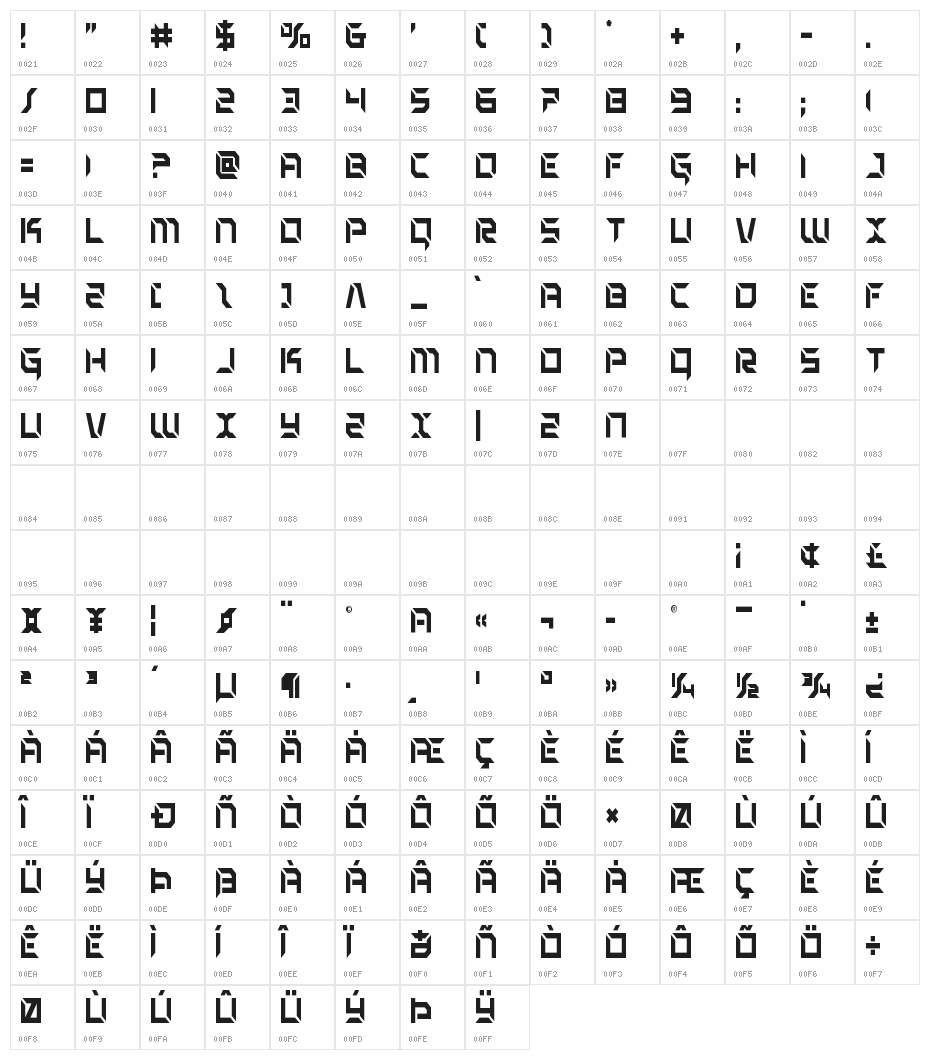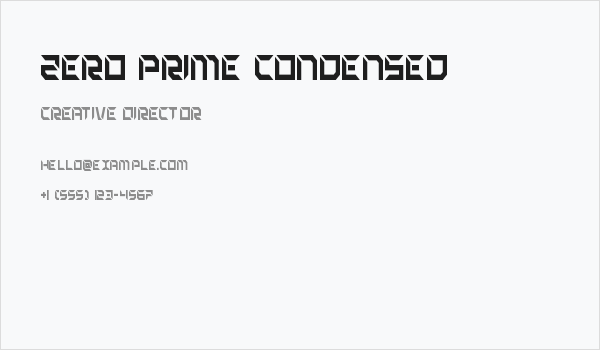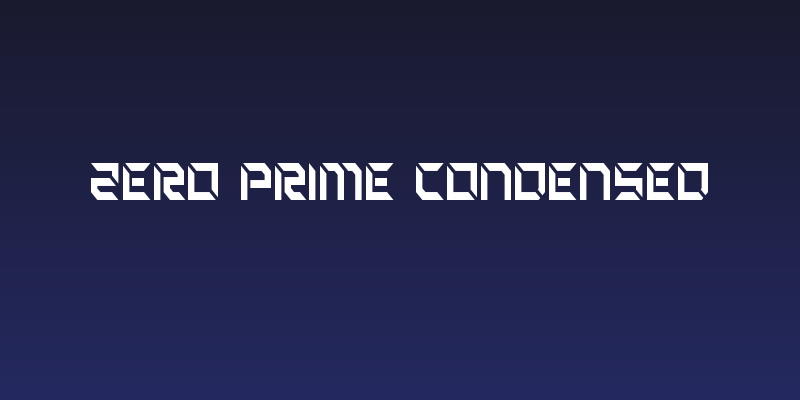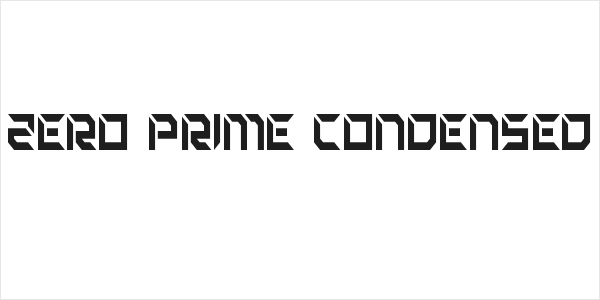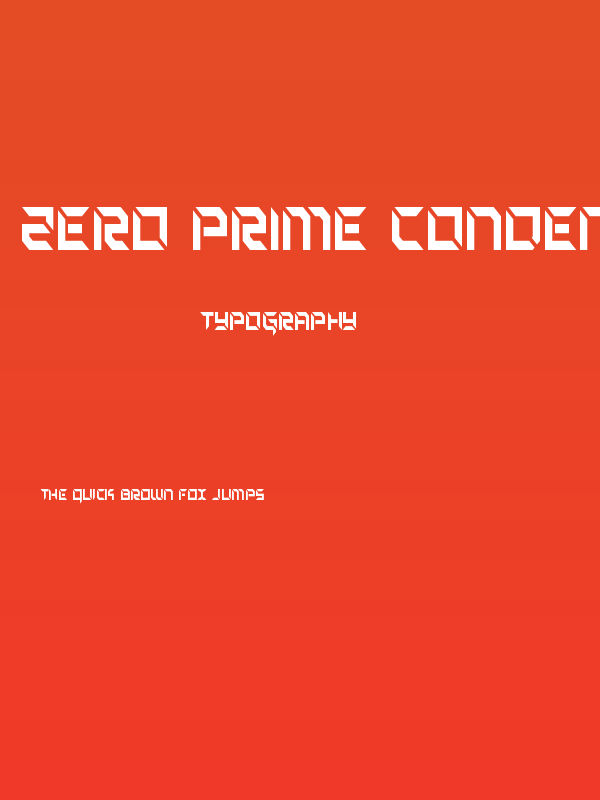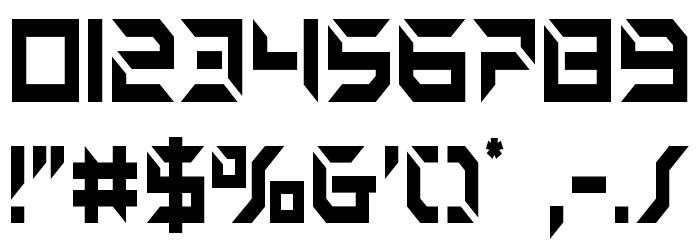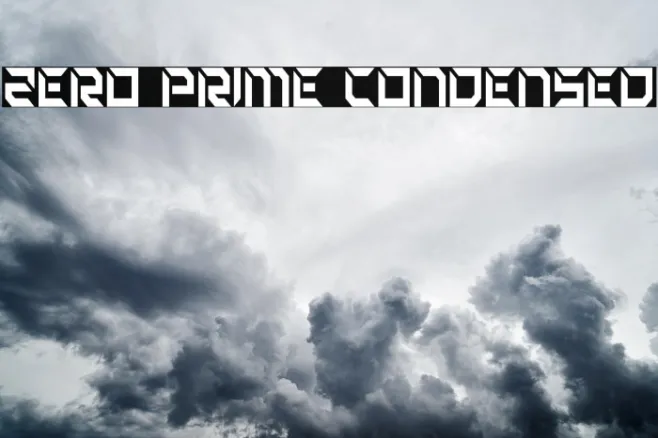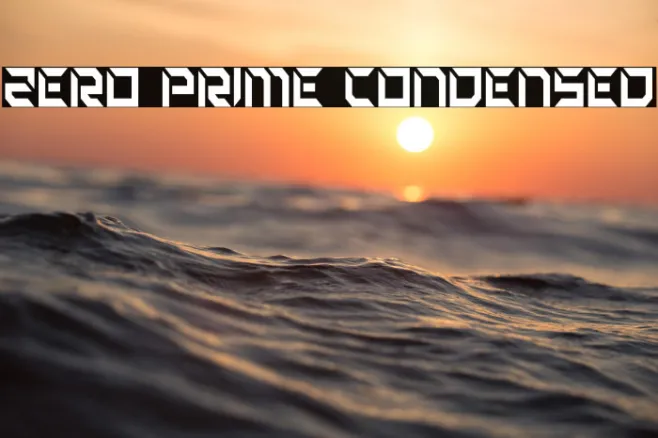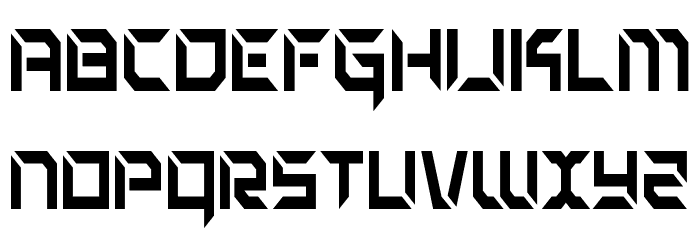
Zero Prime Condensed Font
Zero Prime Condensed Description
This font features a futuristic and angular design, characterized by sharp edges and geometric shapes. The letters are bold and condensed, giving a compact and impactful appearance. The uppercase and lowercase letters share a consistent style, with distinct cuts and angles that create a dynamic and modern look. The numbers and special characters follow the same design principles, ensuring uniformity across all glyphs. This font is ideal for projects that require a strong and contemporary aesthetic, such as technology branding, sci-fi themes, or modern digital interfaces.
| Proposed Projects | Ideal for technology branding, sci-fi themes, modern digital interfaces, and impactful headlines. |